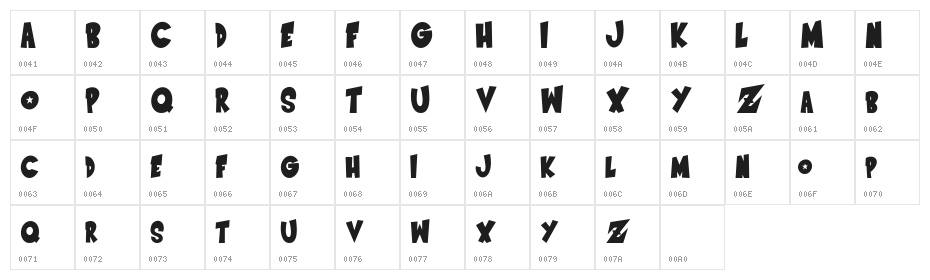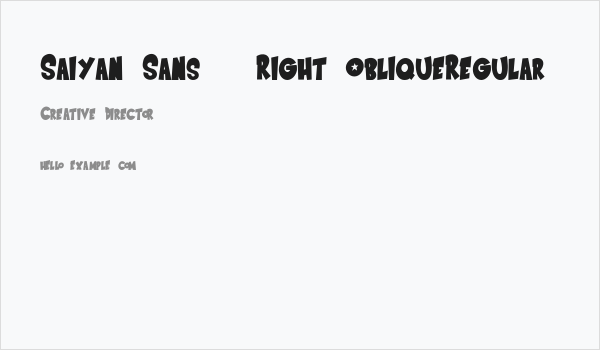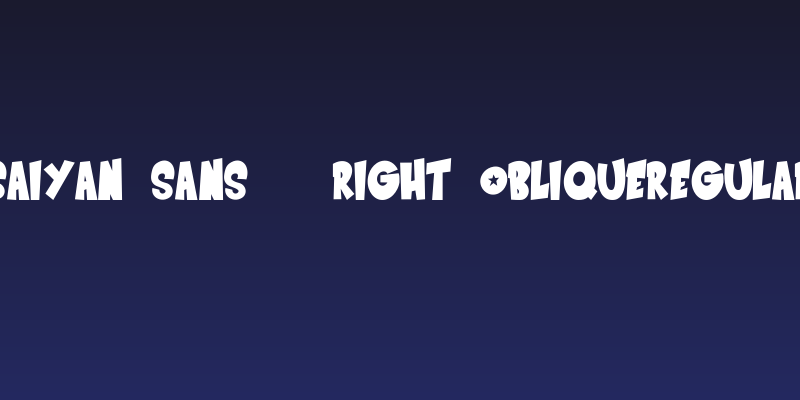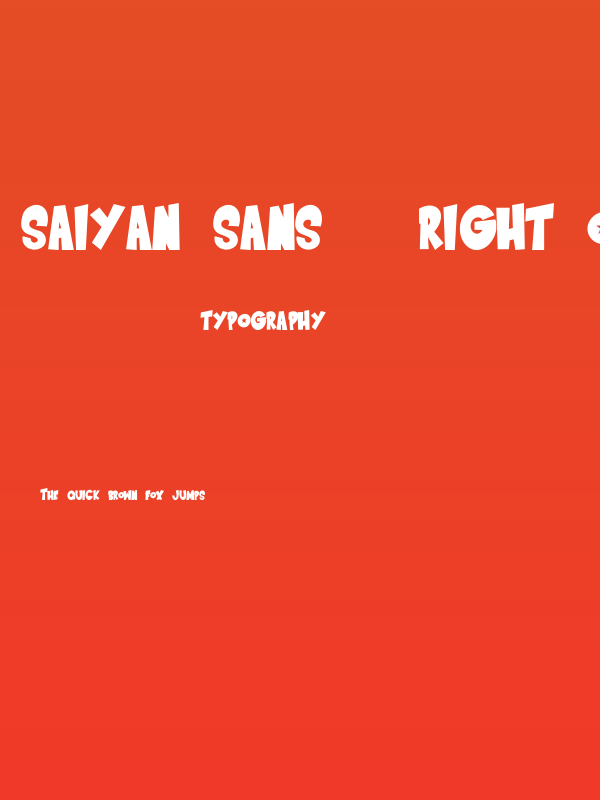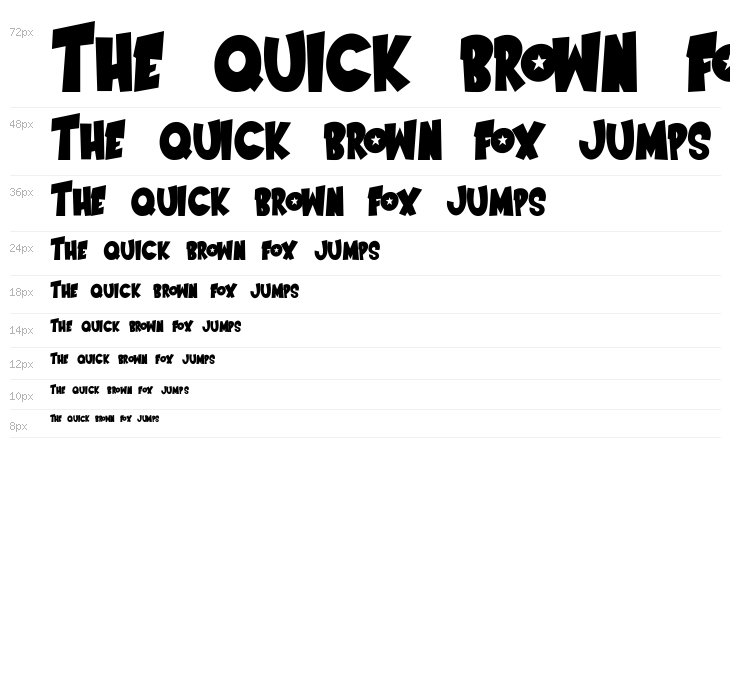
Saiyan Sans - Right ObliqueRegular Font
Saiyan Sans - Right ObliqueRegular Description
This font features bold, dynamic characters with a playful and energetic style. The letters are heavily stylized with a rightward slant, giving a sense of motion and excitement. The uppercase and lowercase letters are consistent in their boldness, with unique shapes that make each character stand out. The font includes special characters that maintain the same bold and dynamic style, making it suitable for attention-grabbing designs. The overall appearance is both modern and fun, ideal for projects that require a strong visual impact.
| Overall Style | Modern, Playful |
| Proposed Projects | Ideal for comic book titles, children's book covers, video game graphics, and playful branding. |